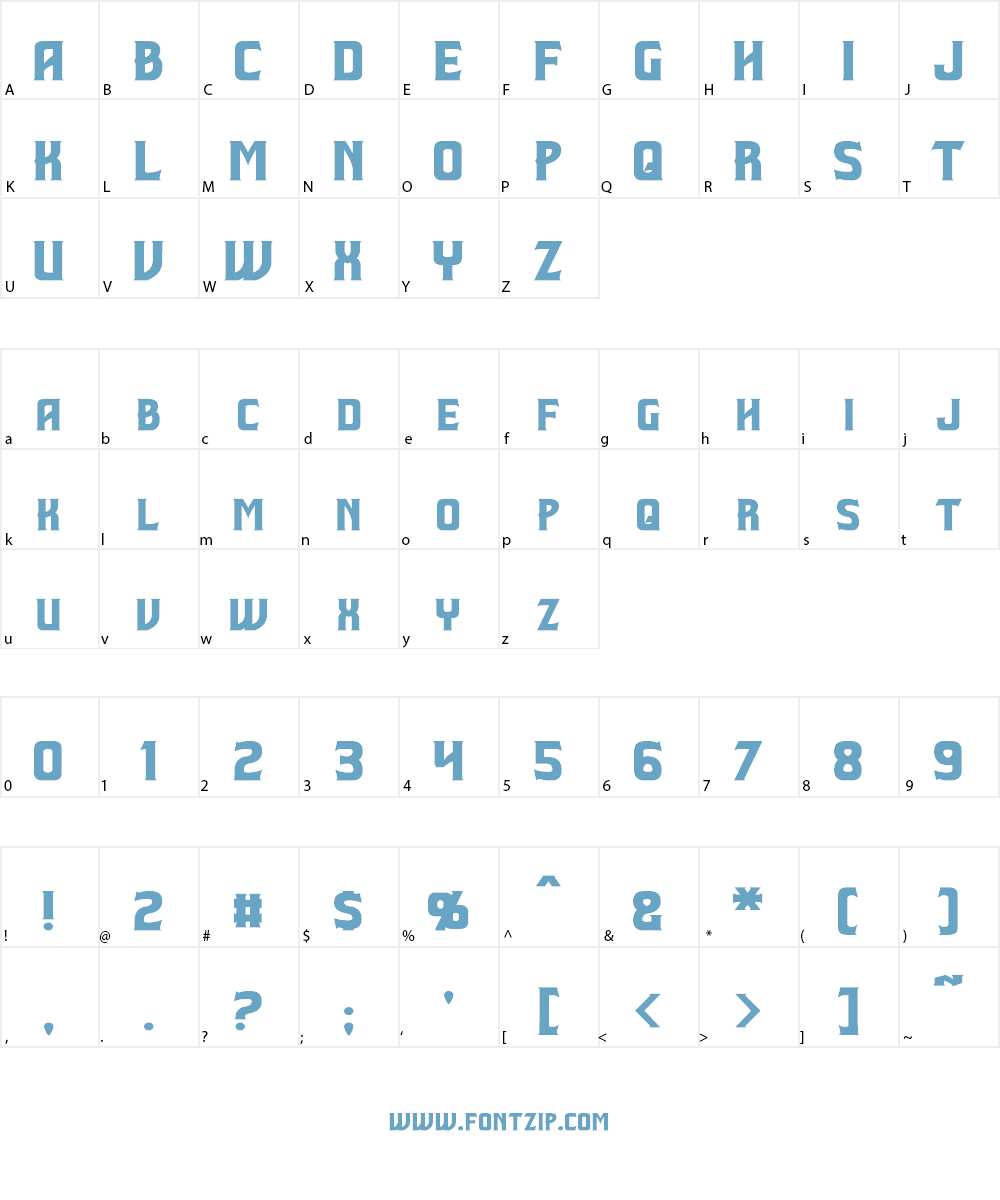
This slightly gothic typeface is based on the long-ago logo of Hasbro's "Battle Beasts" toyline. Includes full alphabet, extended characters, euro. Braces and bar have been replaced with the Wood, Fire, and Water insignia.